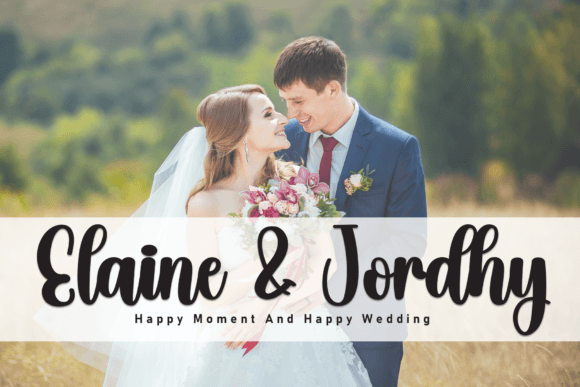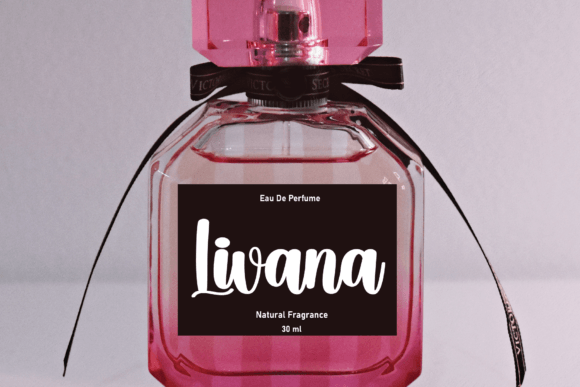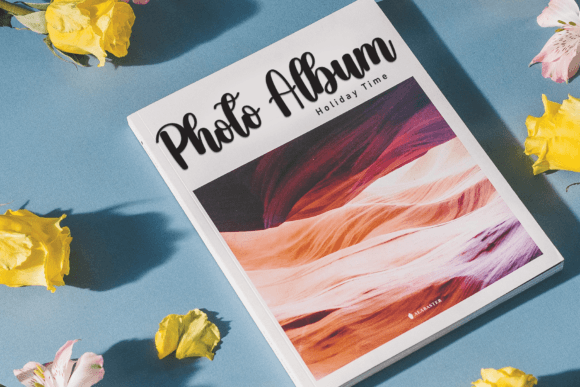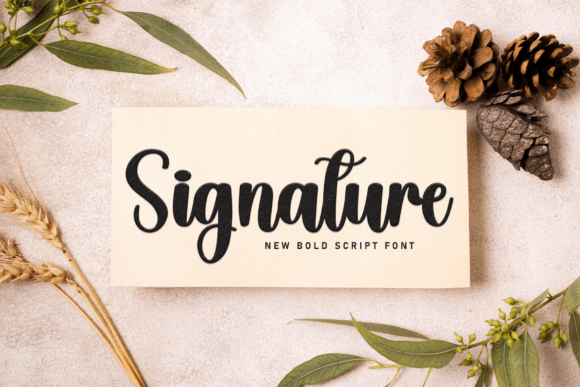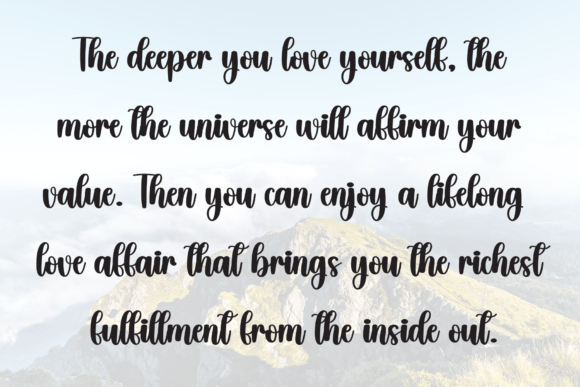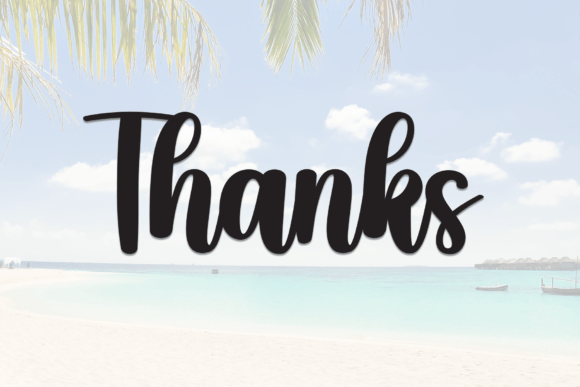
Unleashing the Charm of Beach Font
Do you remember the first time you saw a beautiful, handwritten font on a wedding invitation or a birthday card? It was probably love at first sight, and you couldn’t help but feel a rush of excitement and inspiration. For designers, finding the perfect font can be a game-changer, and that’s exactly what Beach Font aims to be.
Beach Font is a sweet and friendly handwritten display font that’s perfect for adding a touch of fun and personality to your designs. Whether you’re working on a wedding invitation, a birthday card, or any other project that needs a little extra charm, Beach Font is an ideal choice. Its cute and playful style makes it a valuable addition to any designer’s toolkit, and its versatility ensures that it will never go out of style.
Beach Font Key Features
- Unique Characteristics: Beach Font features a distressed, hand-drawn style with a subtle beachy vibe, making it perfect for designs that evoke a sense of relaxation and tranquility.
- Font Style: The font comes in a single style with a variety of weights, including Light, Regular, and Bold, allowing for flexibility in design applications.
Designer Review: Beach Font
Overall, I found Beach Font to be a unique and creative addition to my design toolkit. Here are some things that work well:
- ✨ Customizable script and serif combinations – I love the flexibility it offers in terms of creating a consistent visual identity.
- ✨ Wide language support – Beach Font covers a vast array of languages, making it a great option for global brands and organizations.
- ✨ High-resolution display – The font looks crisp and clear, even at larger font sizes.
- ⚠️ Limited font weights – While the customizable combinations are a plus, having more standard font weights would be beneficial for everyday use.
- ⚠️ Not ideal for small text – The script and serif combinations can become cluttered at smaller font sizes, making it difficult to read.
Overall, I’d recommend Beach Font for projects that require a unique and eye-catching visual identity. However, be aware of its limitations and consider using it in conjunction with other fonts to achieve the desired effect.
Tips for Getting the Most Out of Beach Font
Beach Font is perfect for creating a relaxed and casual vibe. Use it for:
- Birthday invitations and party decorations
- Summer-themed posters and flyers
- Wedding invitations and save-the-date cards
Remember to pair Beach Font with a bold and colorful design to make it truly pop!